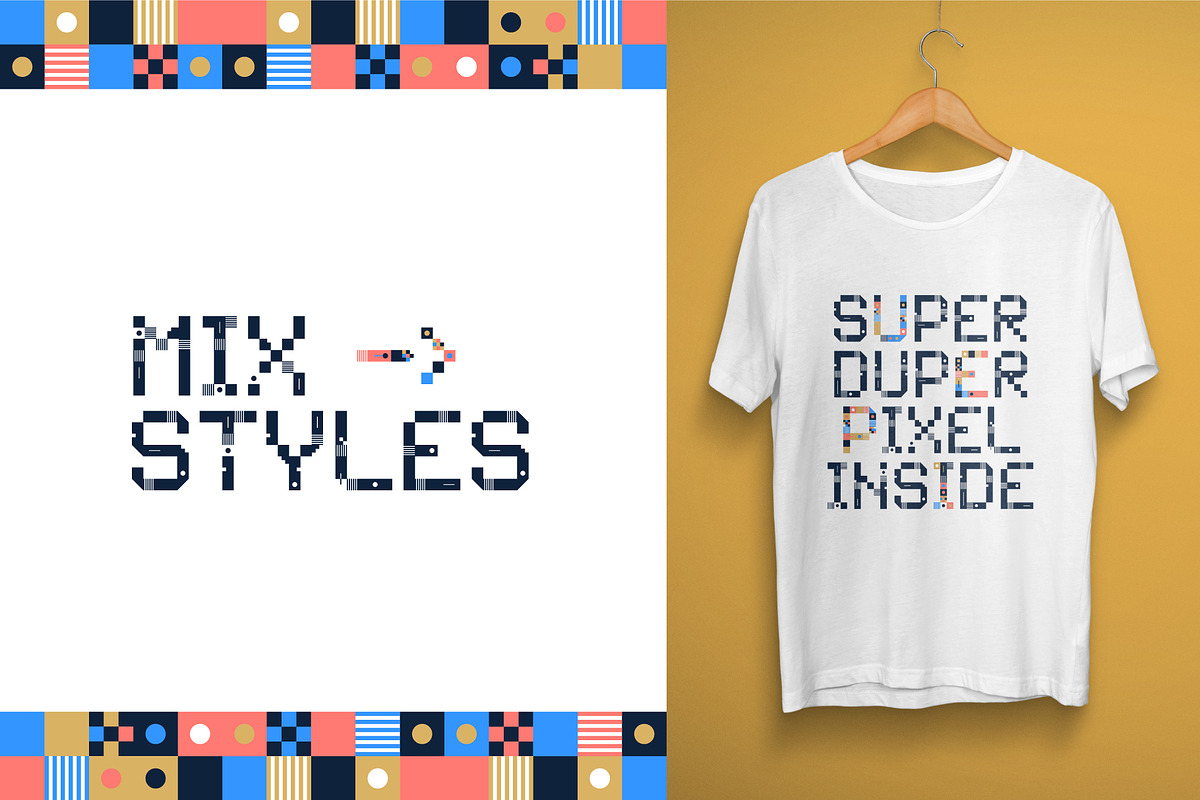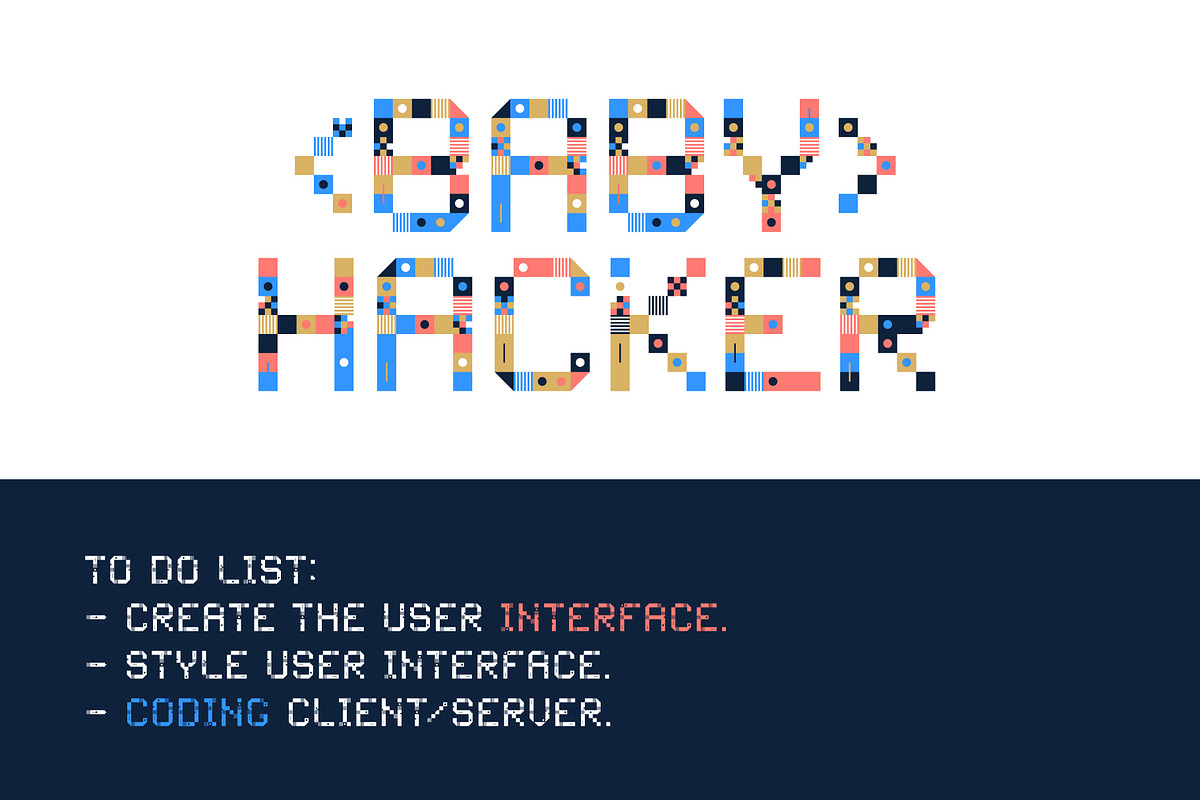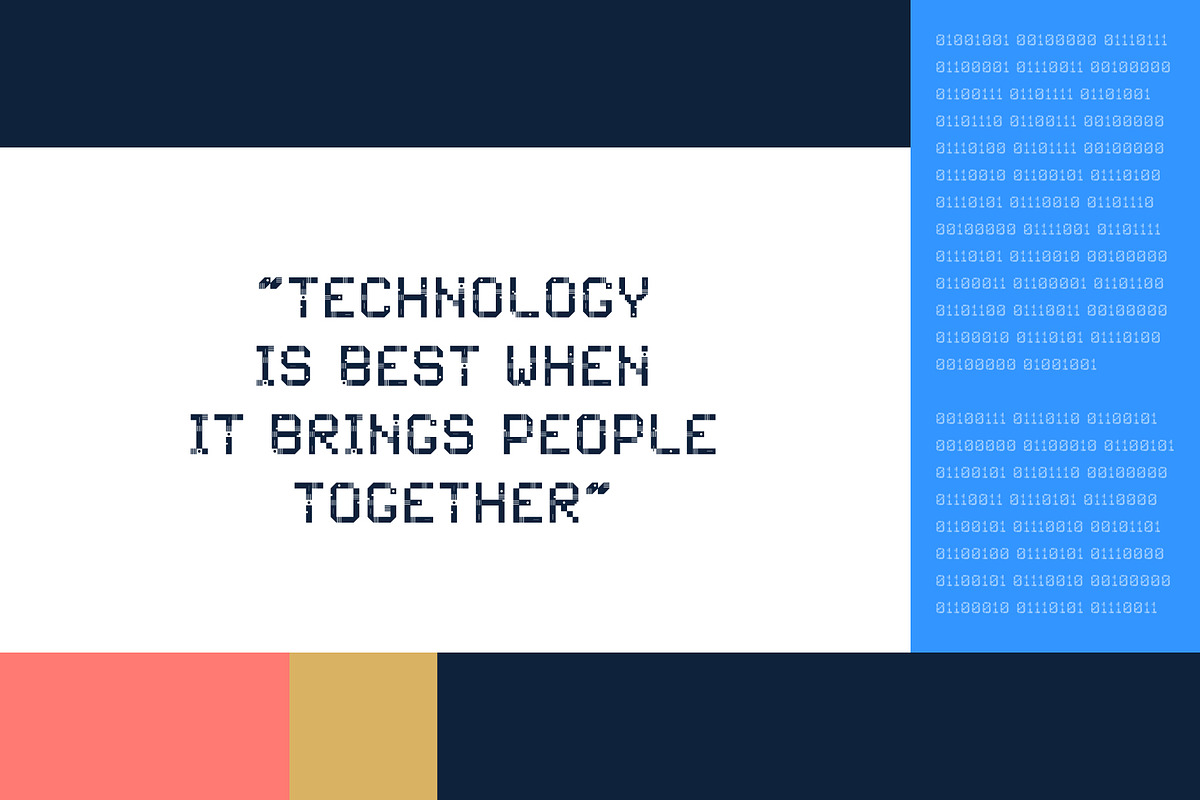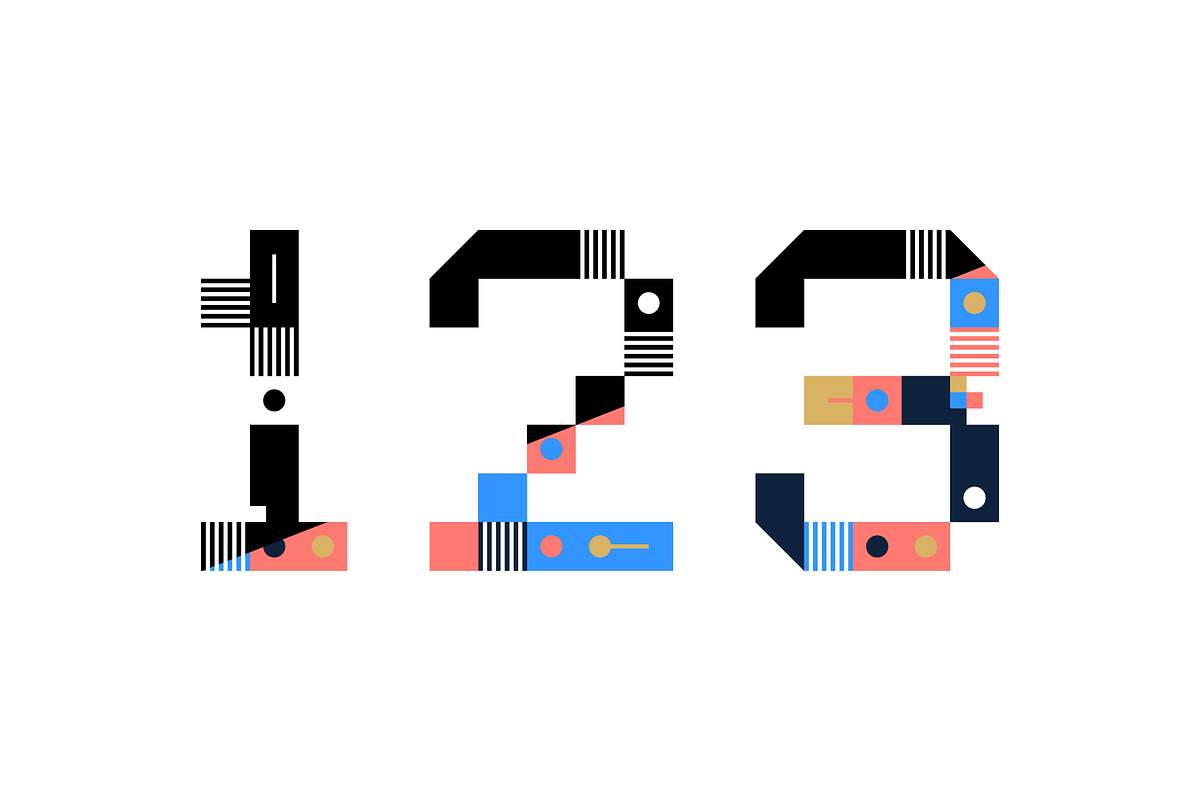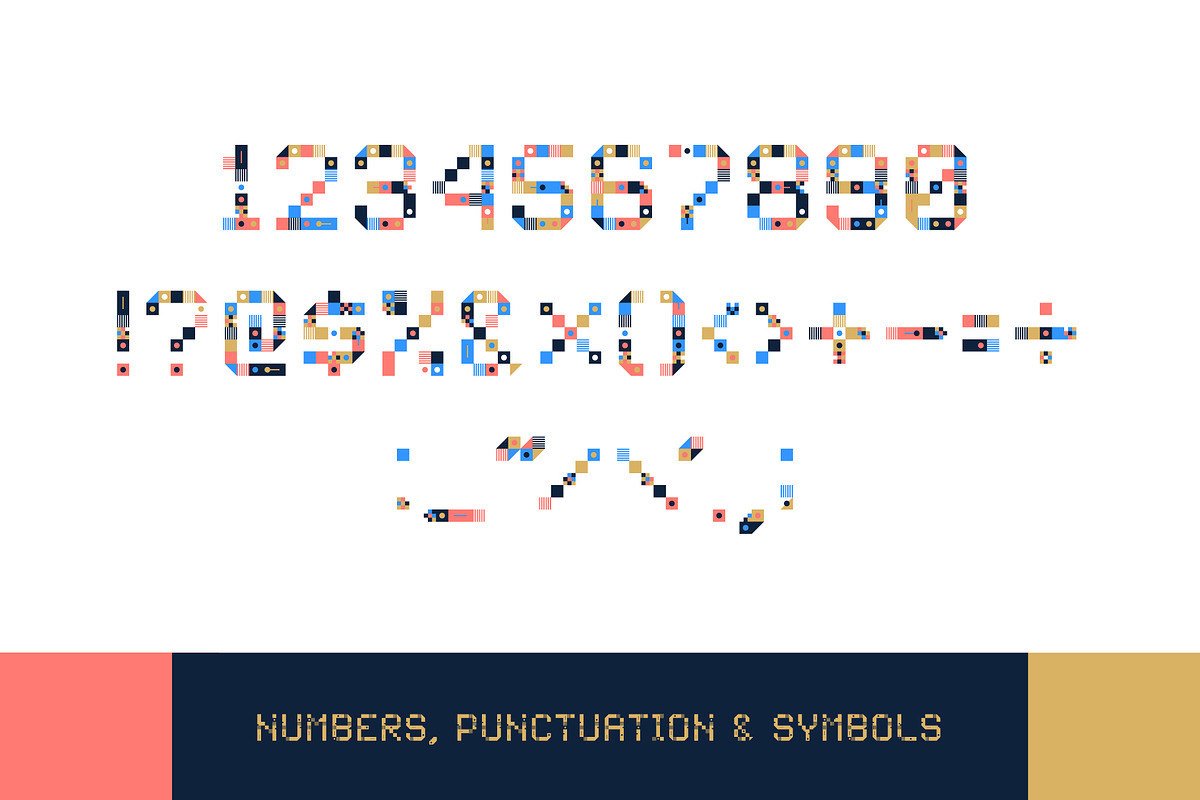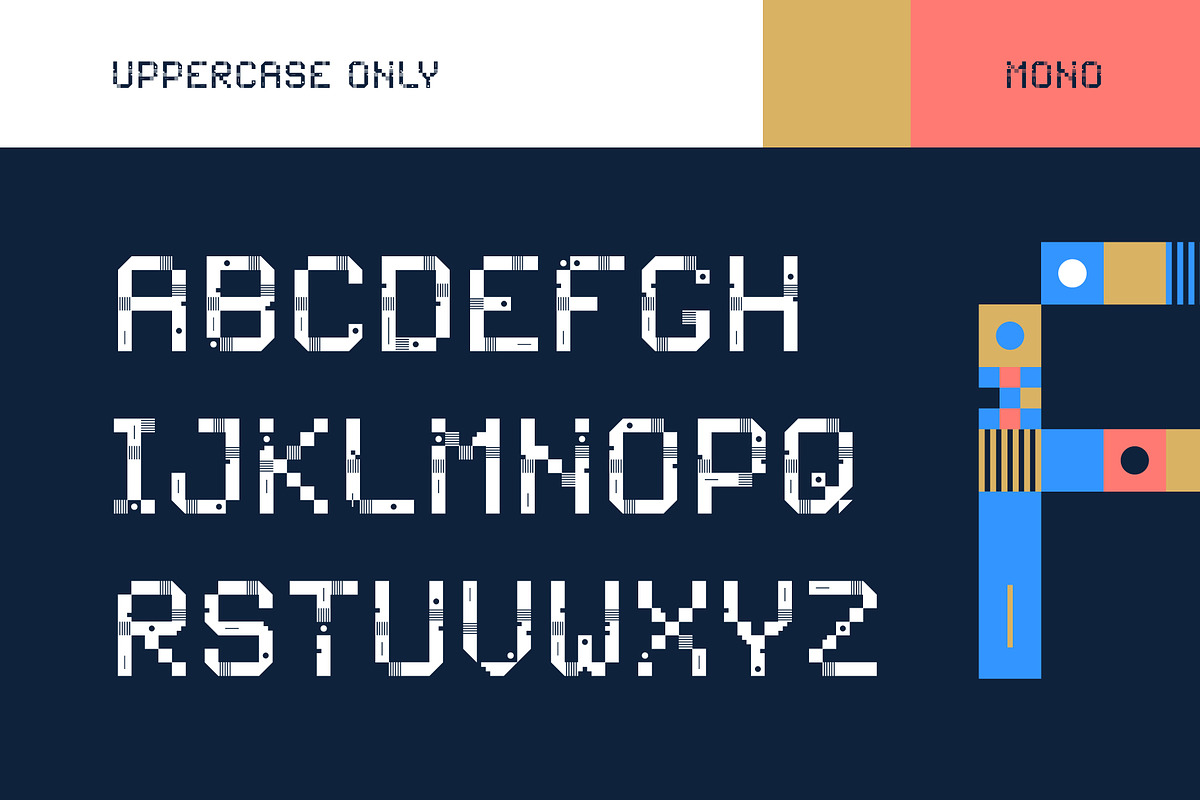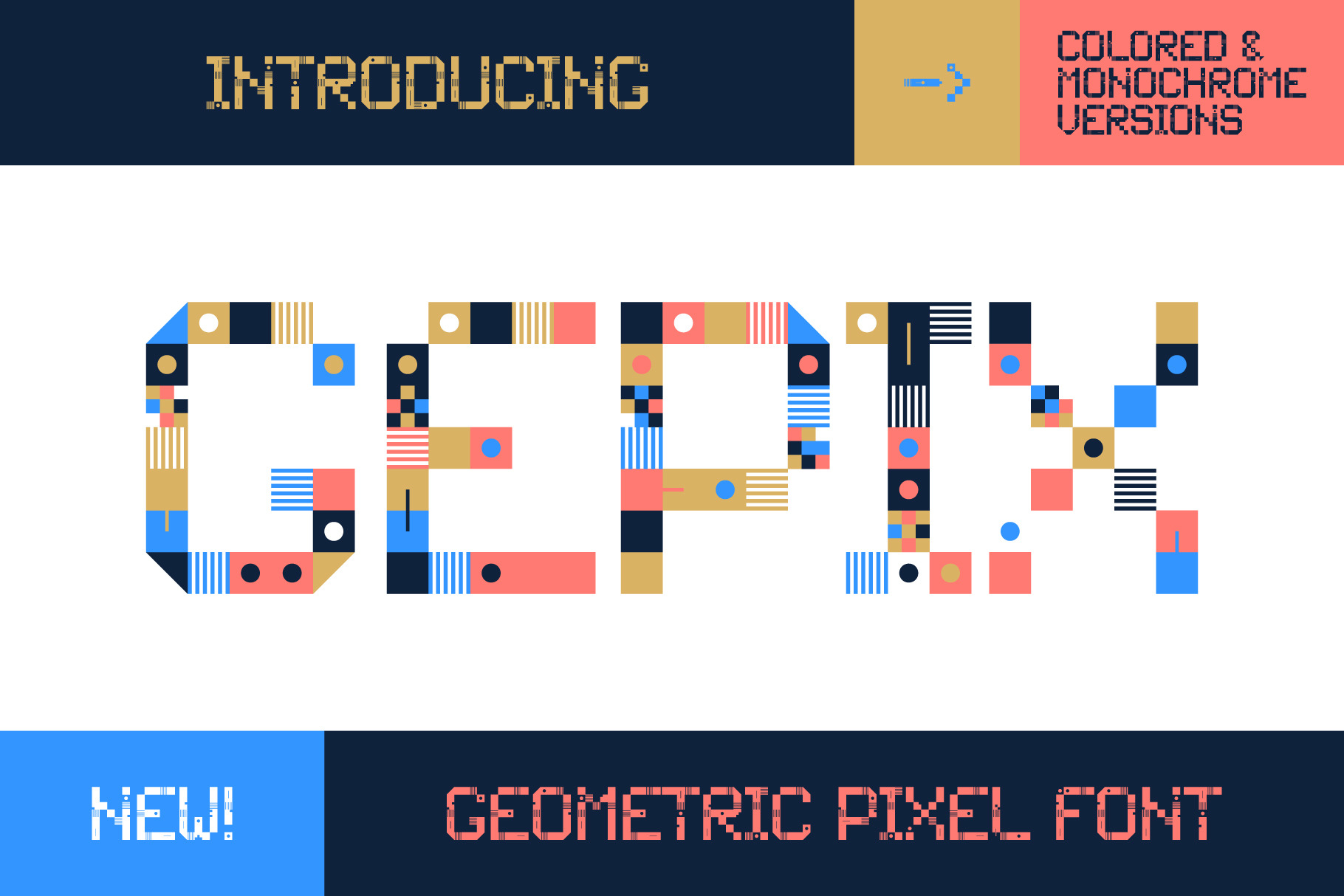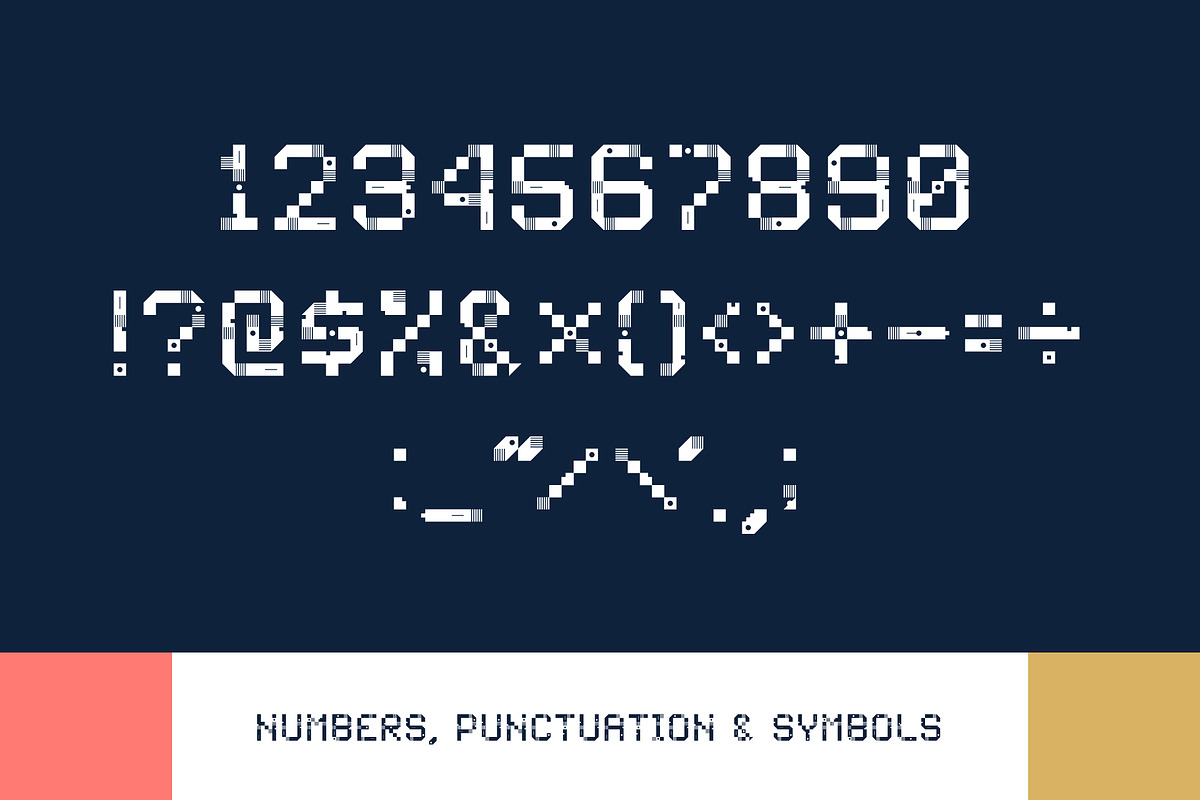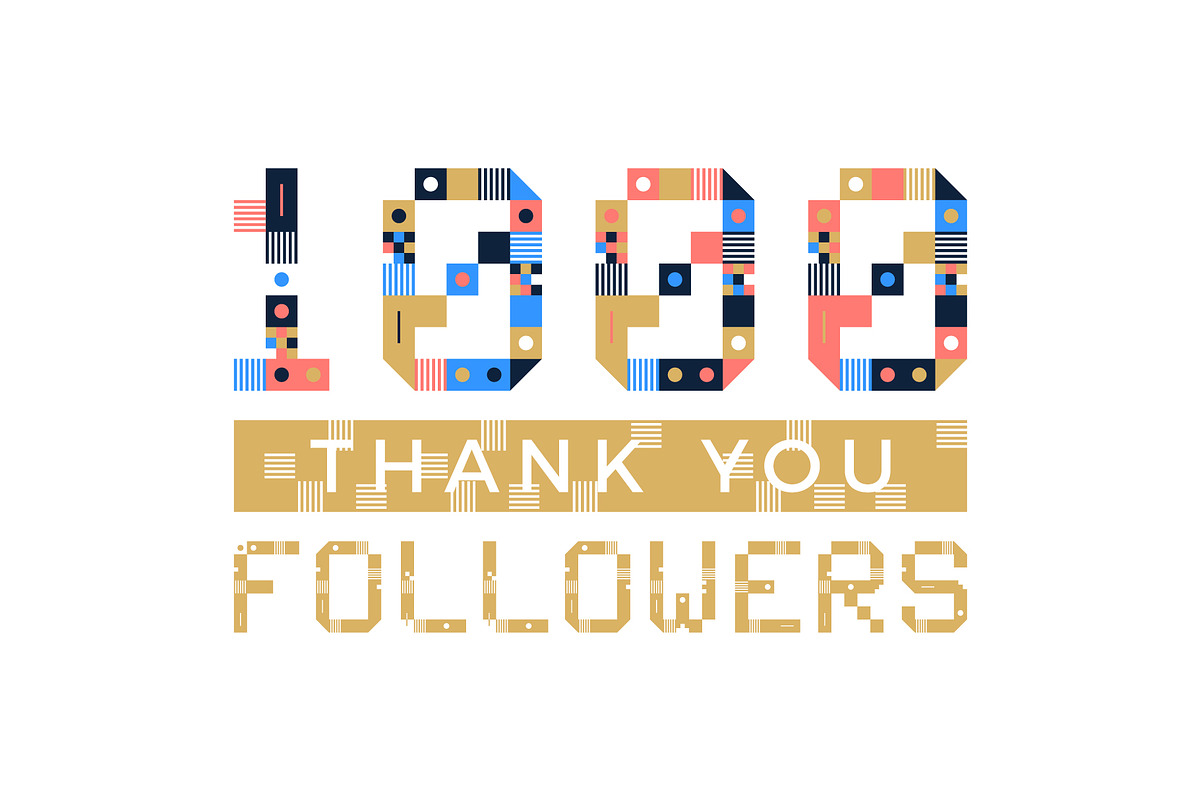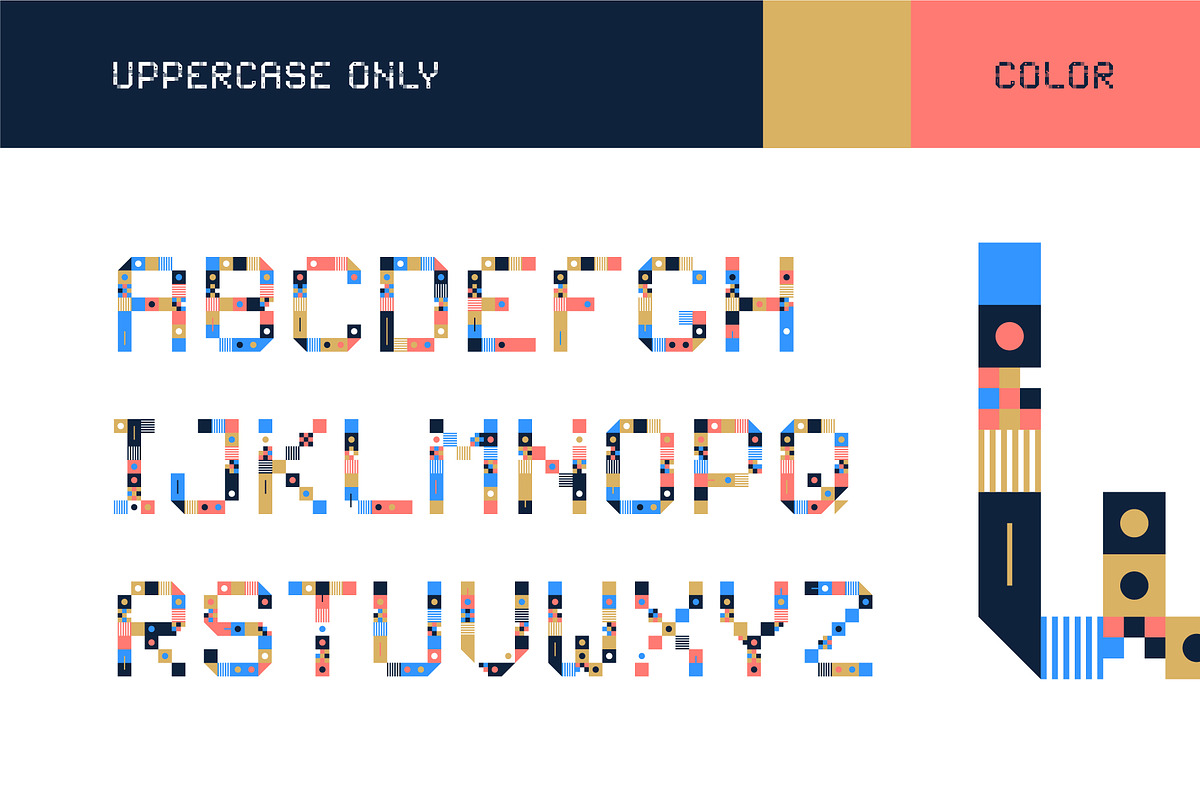
Gepix - Geometric Pixel Color Font
Gepix is an uppercase geometric pixel font in monochrome and color style. It is perfect for headings, flyer, greeting cards, product packaging, book cover, printed quotes, logotype, apparel design, album covers, etc.